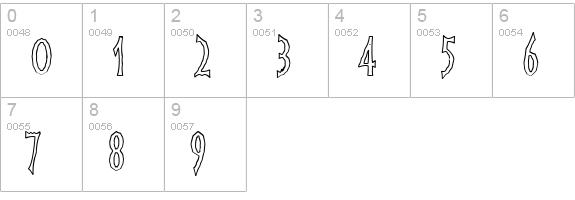
FrankenDork Hollow Font Details
FrankenDork Hollow font is a whimsical and quirky typeface that brings a touch of fun and playfulness to any design project. This unique font features a hollow design with bold outlines, making it perfect for eye-catching headlines, posters, and branding materials. With its quirky charm and uneven lines, FrankenDork Hollow font adds a spooky yet playful vibe to your creations. Best of all, FrankenDork Hollow font is available for free download at FontsMarket.com. Whether you're working on a Halloween-themed project or simply looking to add a touch of whimsy to your designs, this font is sure to captivate and delight. Get creative with FrankenDork Hollow font and let your imagination run wild!